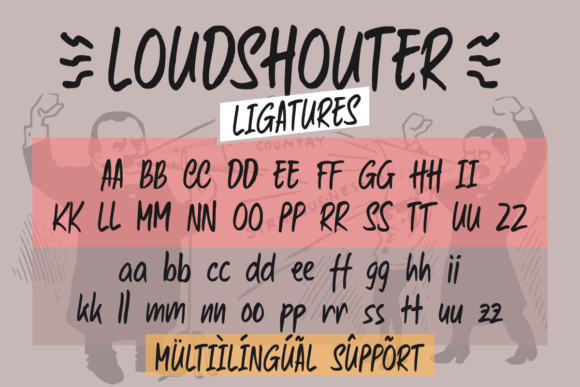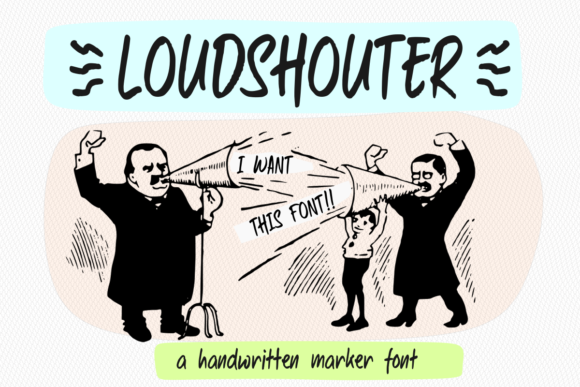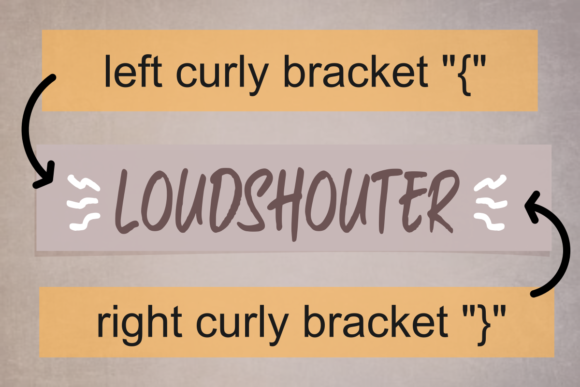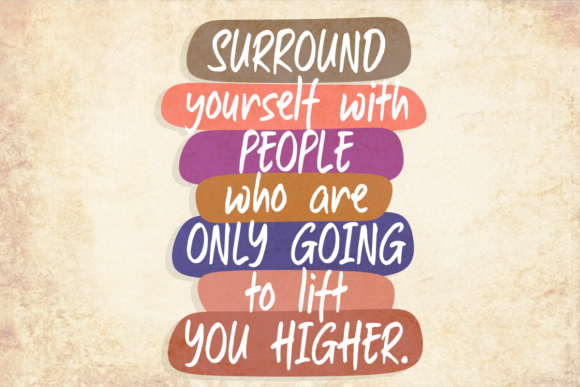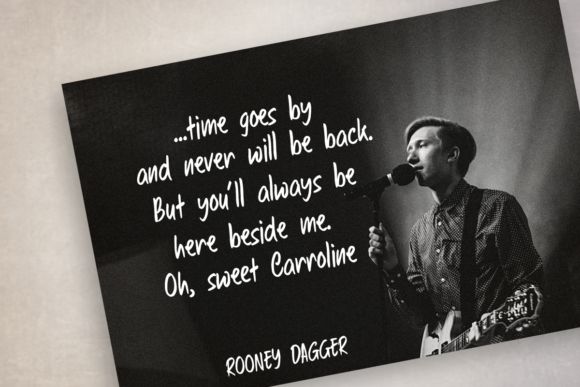
Introduction to Loudshouter Font
Have you ever been working on a creative project, and suddenly, a burst of inspiration strikes? For designers, those moments are the fuel that drives our imagination and sparks our creativity. I recall one such moment when I stumbled upon the perfect font to bring a design to life – the Loudshouter Font. This charming handwritten font is a game-changer, and I’m excited to share its story with you.
With its unique blend of pencil and marker strokes, the Loudshouter Font adds a touch of personality to any design. Whether you’re creating a cartoon, crafting a social media post, or designing a book cover, this font is sure to make your project stand out. And the best part? It’s available for free download, making it an invaluable design resource for creatives of all levels.
Key Features of Loudshouter Font
- Unique and bold design, perfect for creative projects that require a loud and attention-grabbing font.
- Features a transparent background, allowing for seamless integration with any background design.
- Perfect for use in posters, flyers, and other visual materials where a bold and loud font is required.
Honest Review: Loudshouter Font
As a designer, I’m always on the lookout for unique and high-quality design resources. The Loudshouter Font is one such find that caught my attention. I decided to dive in and see what it has to offer.
Here are some things that work well with the Loudshouter Font:
- ✨ It’s perfect for creative projects that require a bold and attention-grabbing font.
- ✨ The transparent background feature allows for seamless integration with various design elements.
- ✨ The font is designed with precision, resulting in a high-quality output that’s perfect for professional designs.
- ⚠️ The font might not be suitable for projects that require a subtle or minimalist aesthetic.
- ⚠️ Some users may find the font too loud or overwhelming, especially when used in large quantities.
Overall, I’m impressed with the Loudshouter Font’s potential as a design resource. While it may not be suitable for every project, it’s an excellent choice for creative endeavors that require a bold and eye-catching font. I’d recommend giving it a try to see if it fits your design needs.
Tips for Getting the Most Out of Loudshouter Font
Use the Loudshouter Font on a transparent background to create a striking design element. Experiment with different font sizes and colors to add depth and interest to your design.
The Loudshouter Font is ideal for creative projects, including social media graphics, posters, and brochures. It’s also perfect for designers who need a high-quality font for their design resource library.